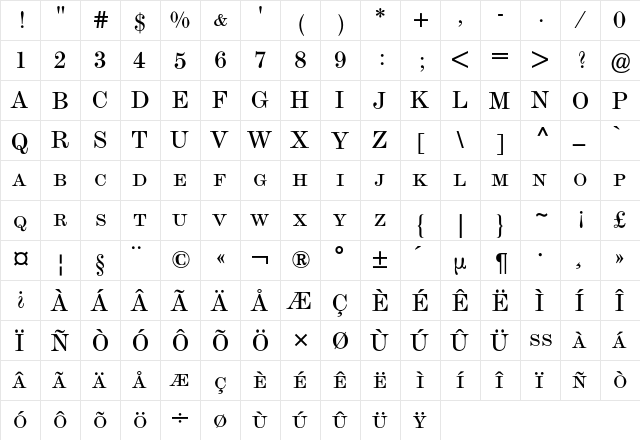
Modern Expert BQ Regular
Design Context for Modern Expert BQ Typeface
Modern Expert BQ is a composed and adaptable typeface that performs quietly and consistently across a wide range of design contexts.